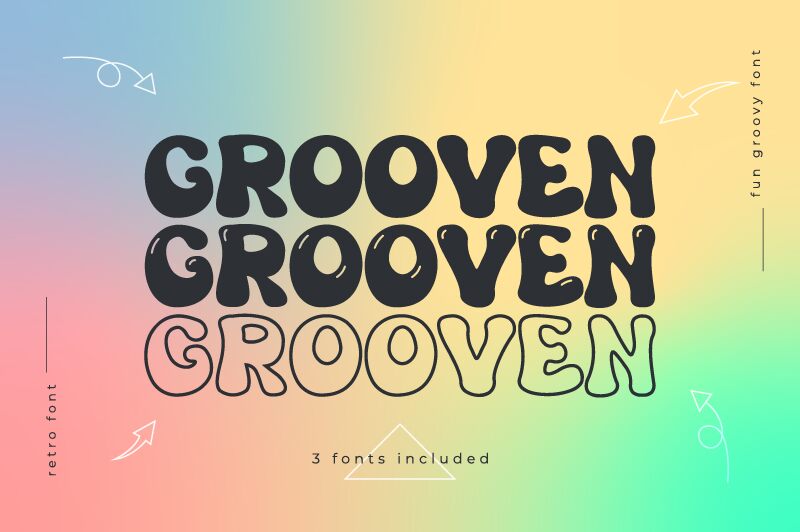
Grooven Shine
Grooven Shine is a bold and groovy display font that will add a touch of retro funk to any project. Created by Salamahtype.com, this semi-expanded typeface is perfect for projects that require a fun and funky vibe, such as music album covers, posters, and flyers. The bold weight of the font ensures that your message will be eye-catching and memorable. With its unique style, Grooven Shine is suitable for a range of projects where you want to make a statement and stand out from the crowd. Add some groove to your designs with Grooven Shine!